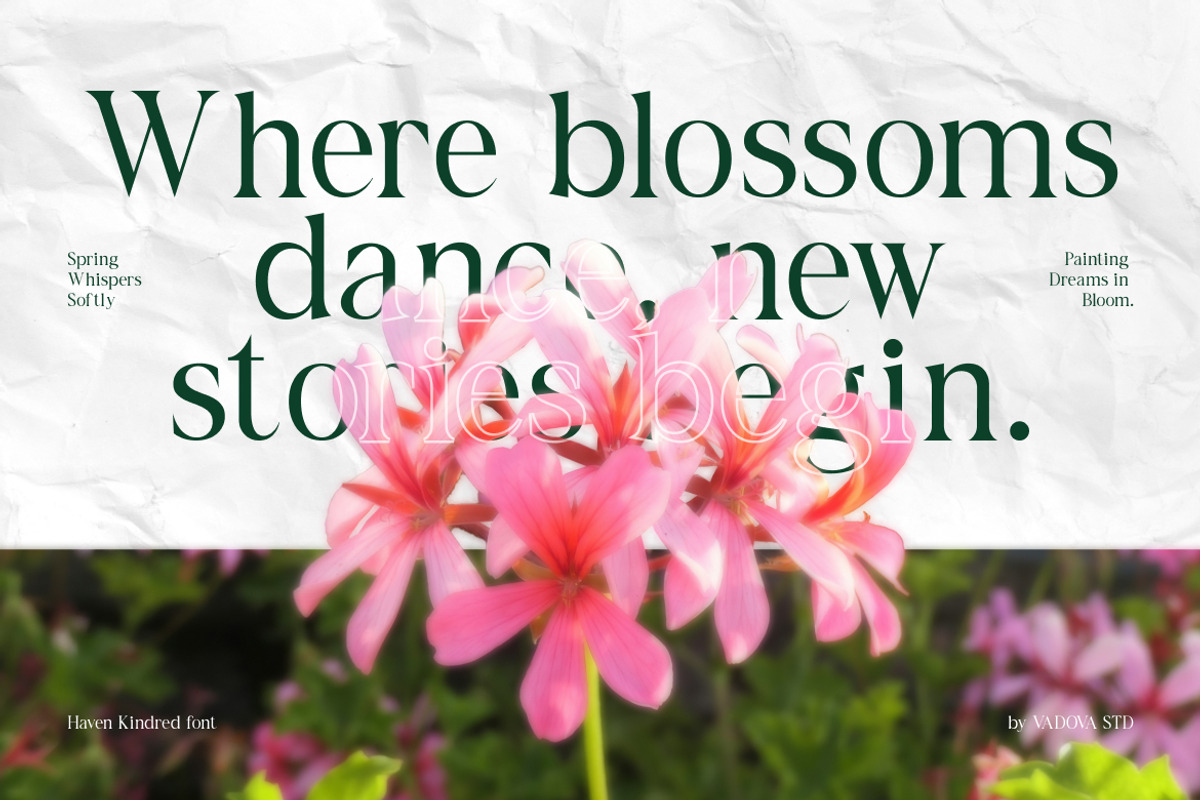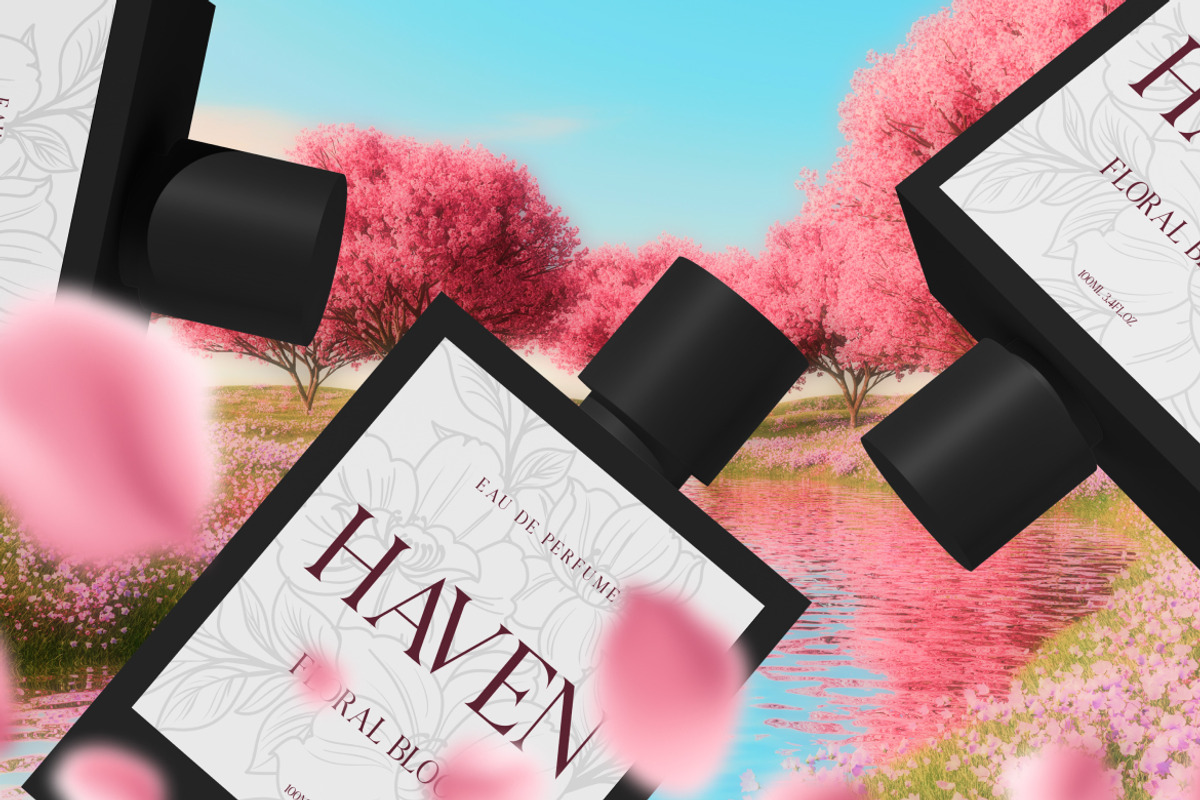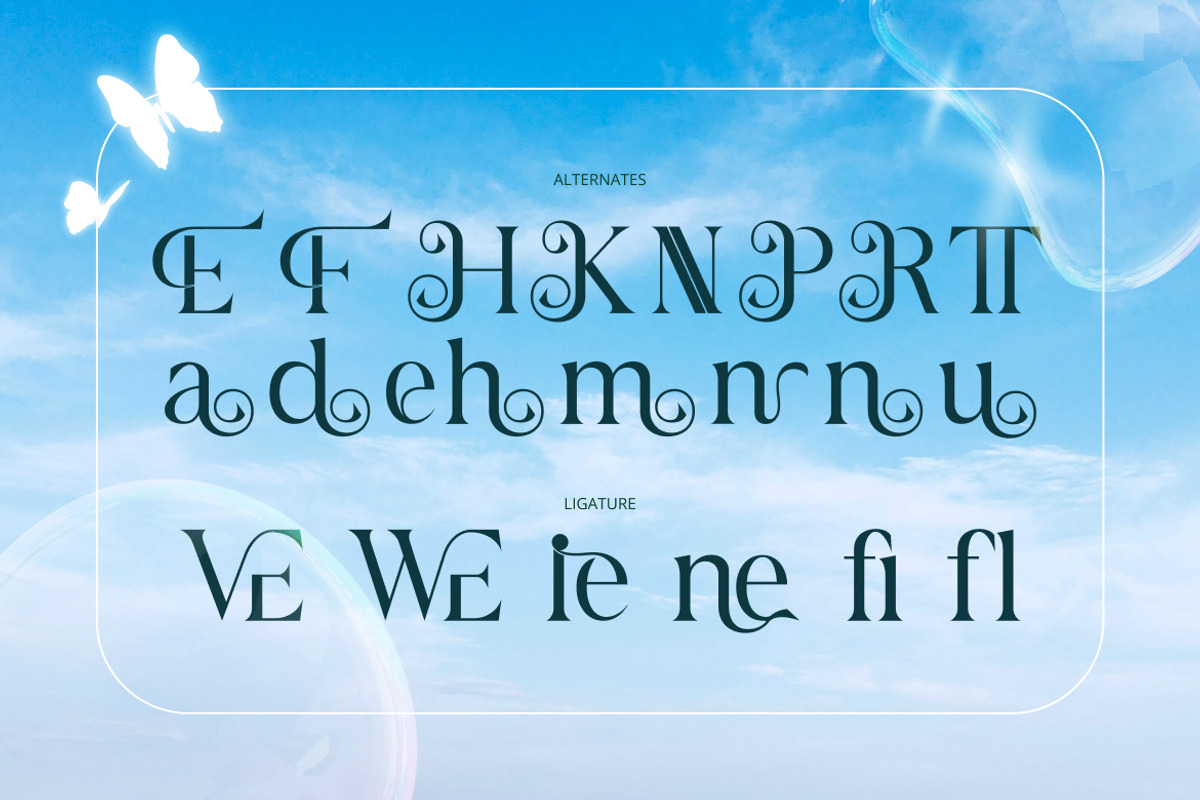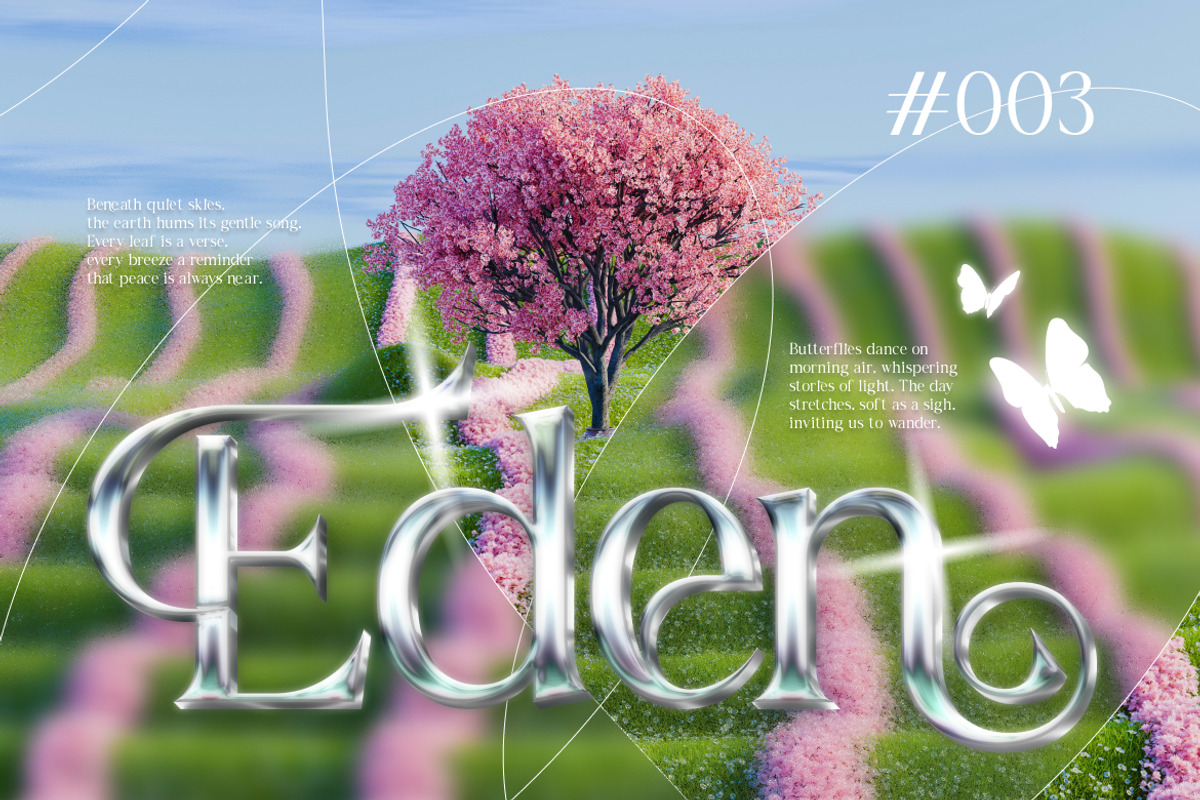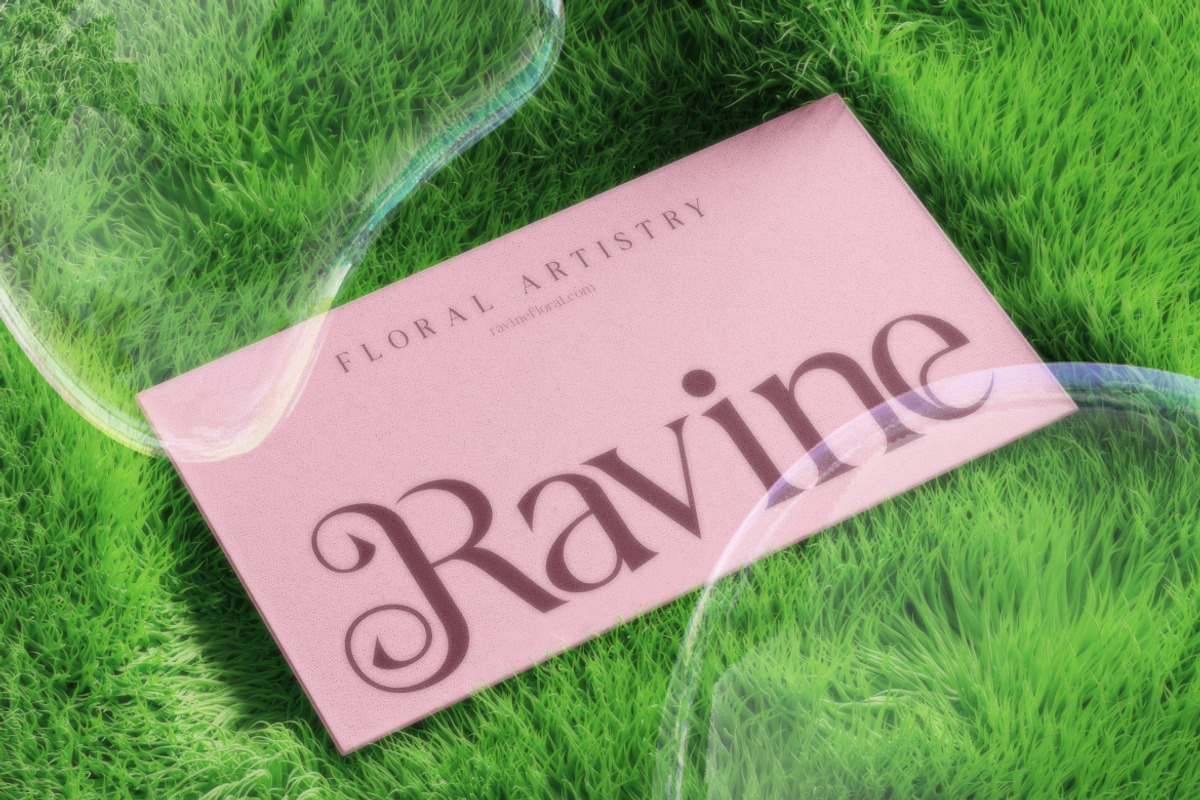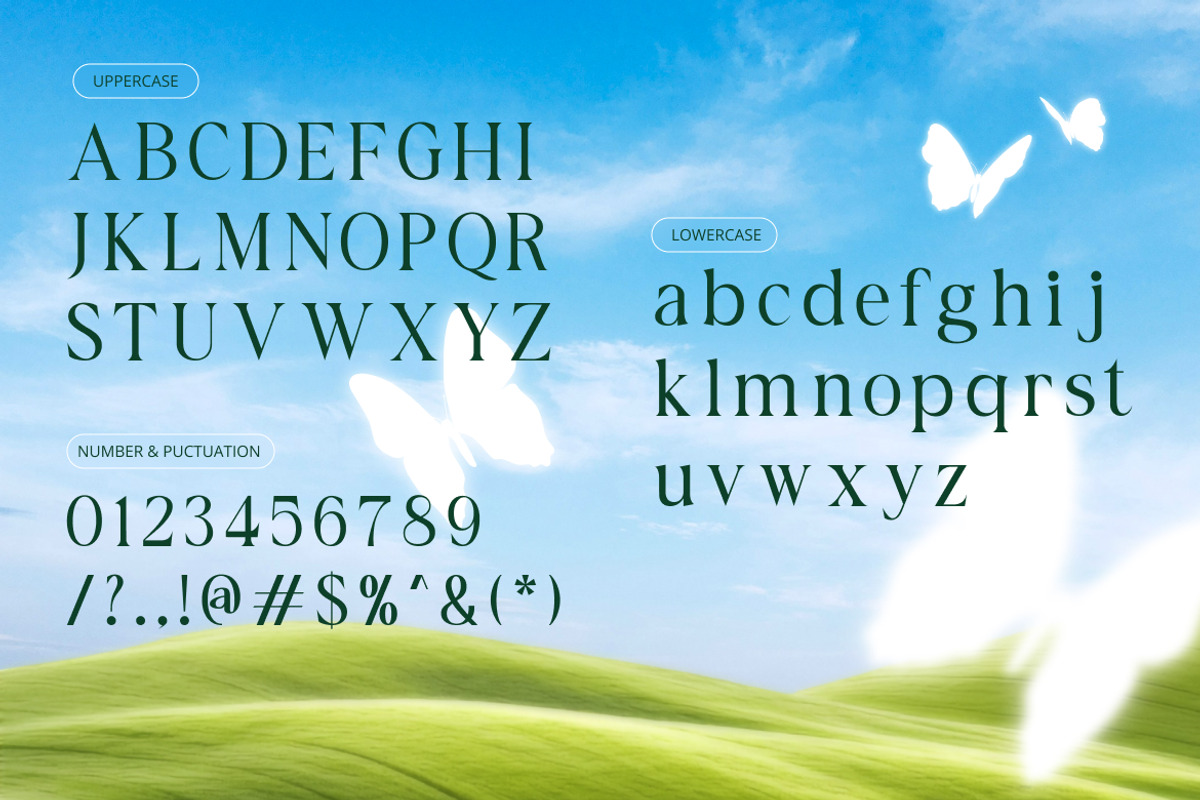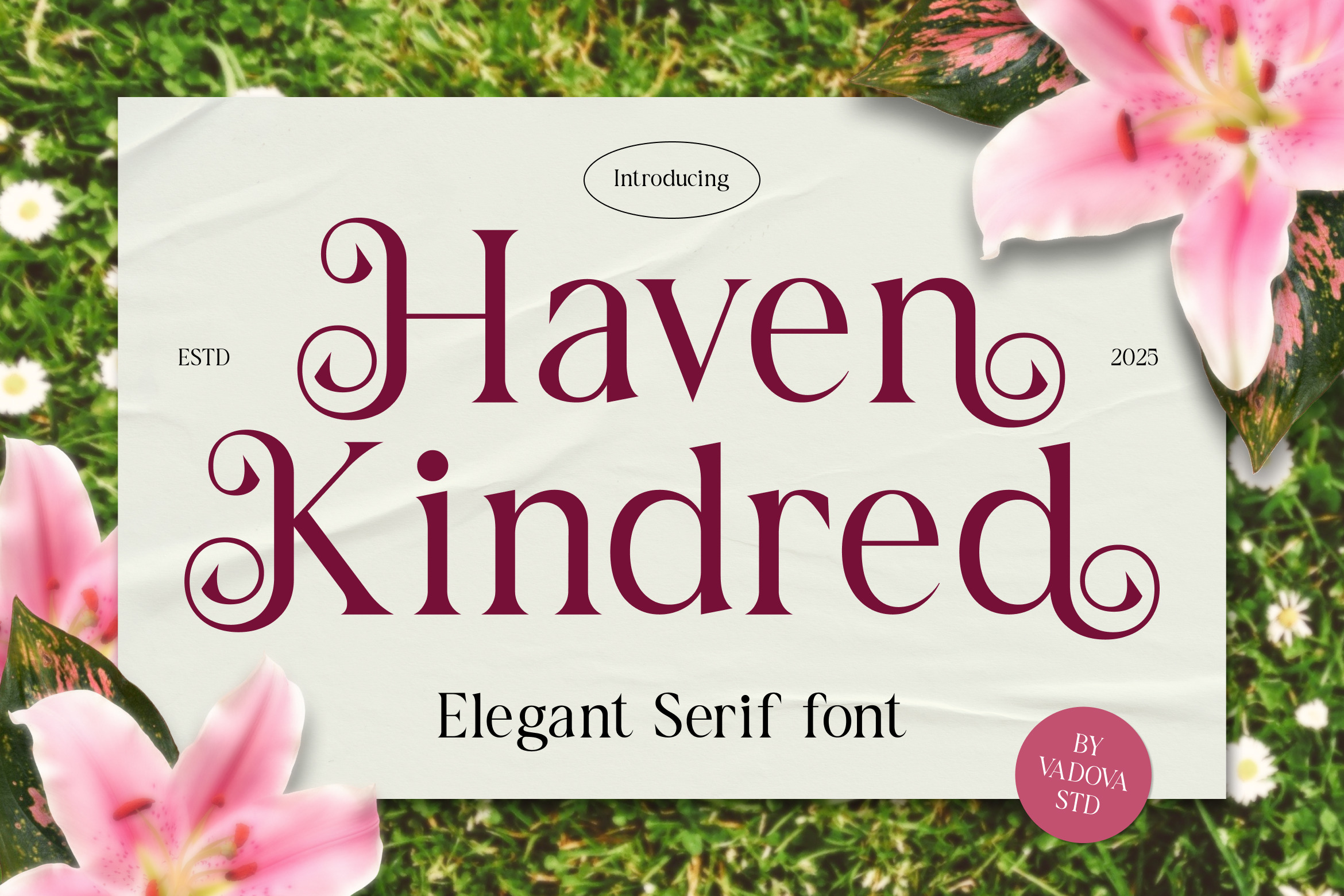
Haven Kindred Decorative Script Font
Haven Kindred is a beautifully crafted serif typeface that fuses classic serif structure with decorative swashes, alternating characters, and graceful ligatures. With its refined curves and ornamental detailing, this font is designed to bring elegance, personality, and expressive charm into your designs.
Ideal for projects that need both sophistication and creative flair, Haven Kindred works well in upscale branding, elegant invitations, boutique packaging, fashion editorials, and premium print materials. Its alternates and ligatures allow for creative typography that stands out with a sense of artistry.
The typeface includes uppercase and lowercase letters, numerals, punctuation, alternate characters, and ligature support. It’s optimized for both print and digital use and integrates smoothly with software like Adobe Illustrator, Photoshop, Figma, or Canva.
- Decorative serif style with elegant swashes and alternates
- Uppercase + lowercase + numerals + punctuation + stylistic alternates
- Ligature support for fluid, expressive typography
- Ideal for display use (titles, headings, branding)
- Multilingual character support
- Works well for wedding invites, luxury branding, editorial layouts, high‑end product packaging
- Gives a blend of classic serif readability and decorative display flair
Relevance and Use Cases is for premium branding, high‑end editorial layouts, boutique packaging, and luxurious print media. The inclusion of stylistic alternates and ligatures allow for custom typographic flair, while the robust base serif ensures legibility. Whether you're designing an invitation suite, a fashion cover, or signature packaging, Haven Kindred brings both refinement and charm.